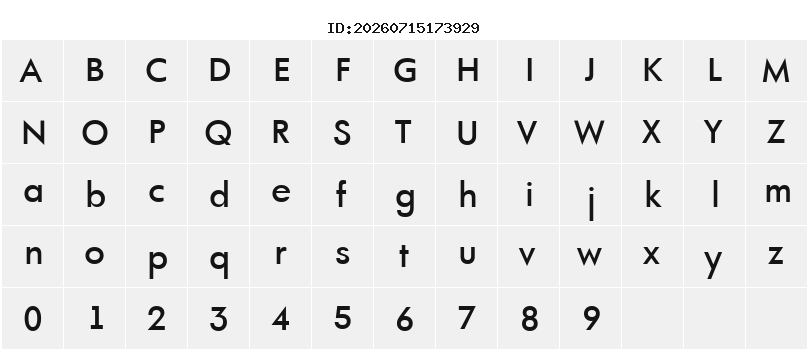
a_FuturaOrtoLt.ttf is a modern, elegant sans-serif font designed for ultimate readability and visual harmony. Perfect for branding, headlines, web design, and print materials.